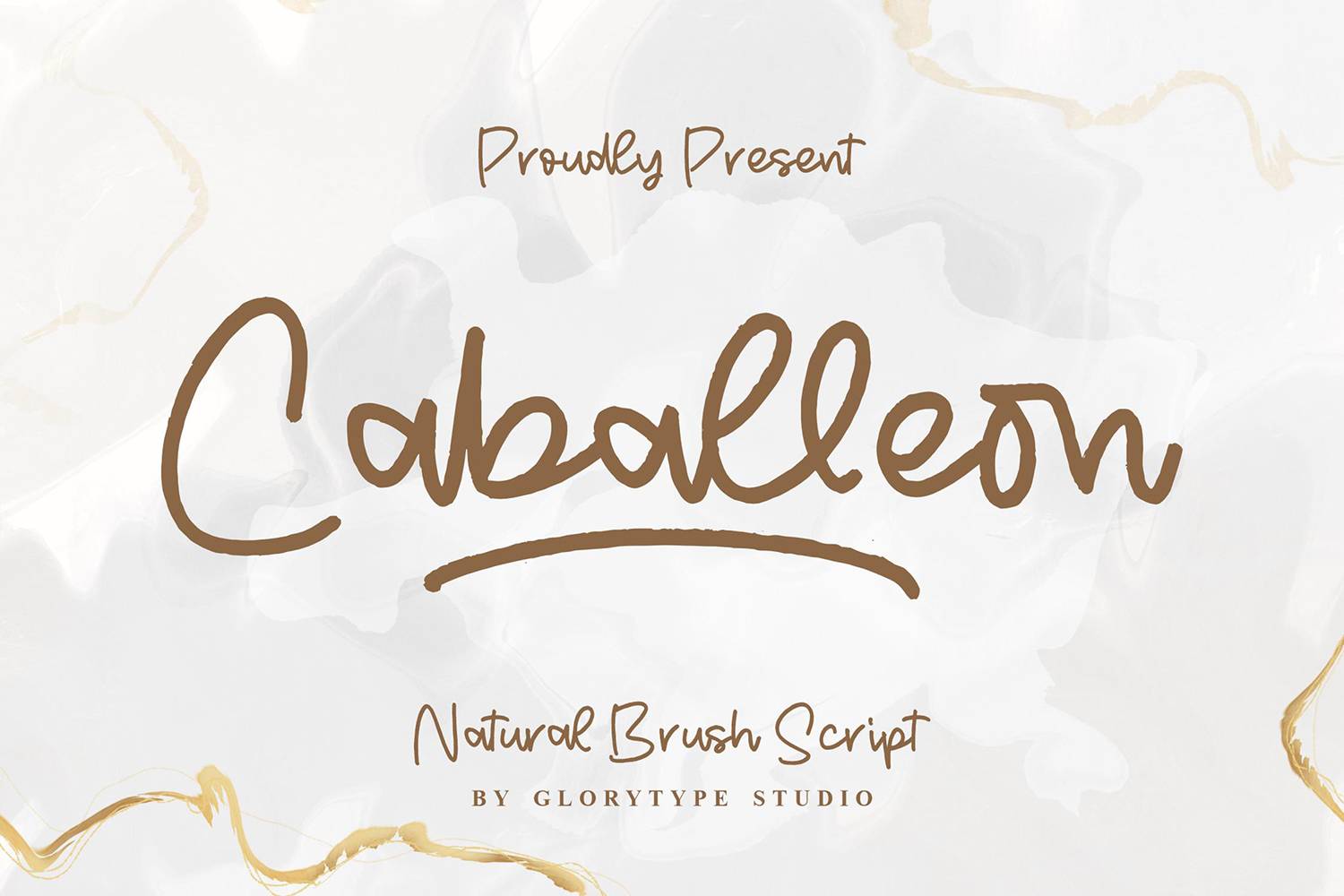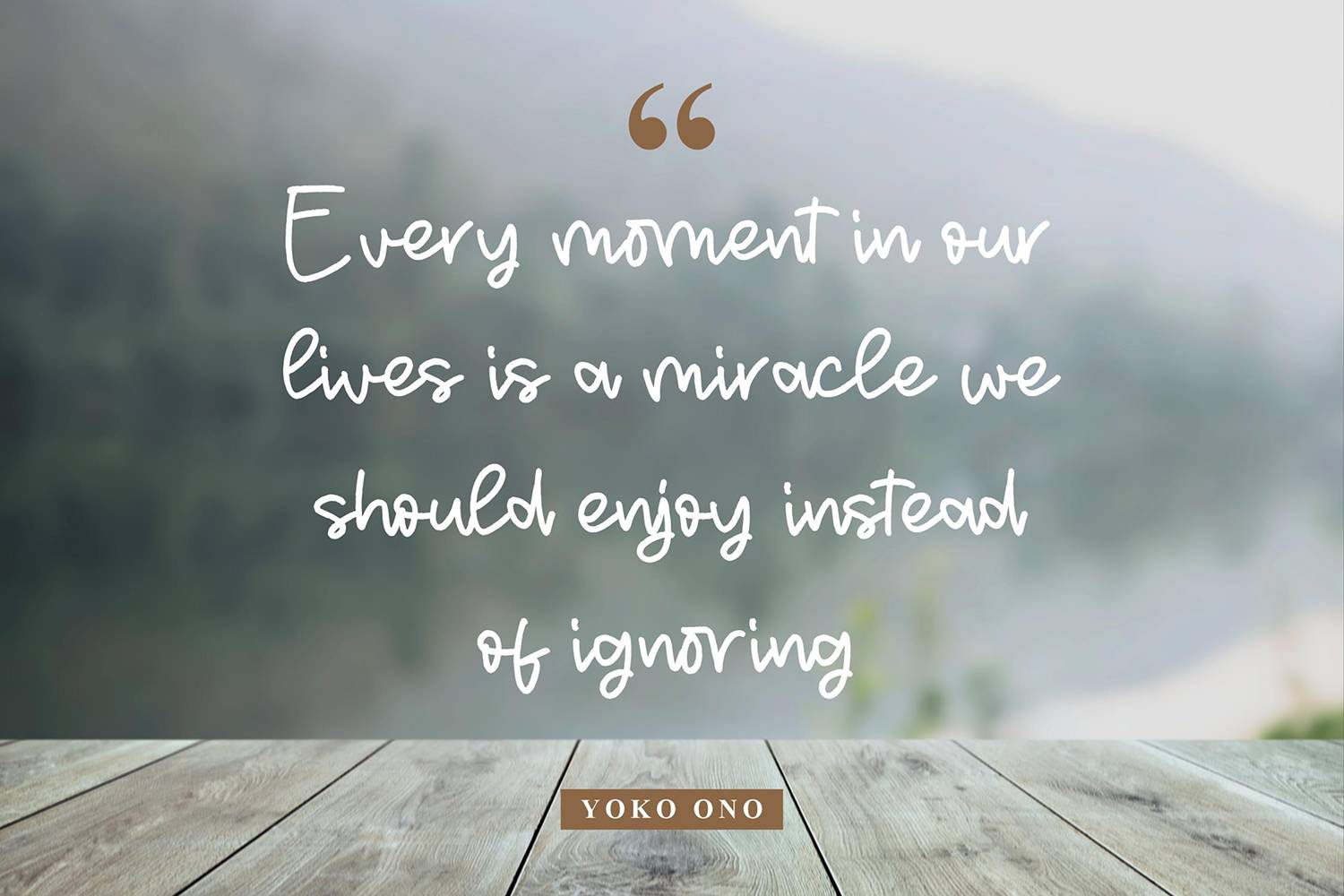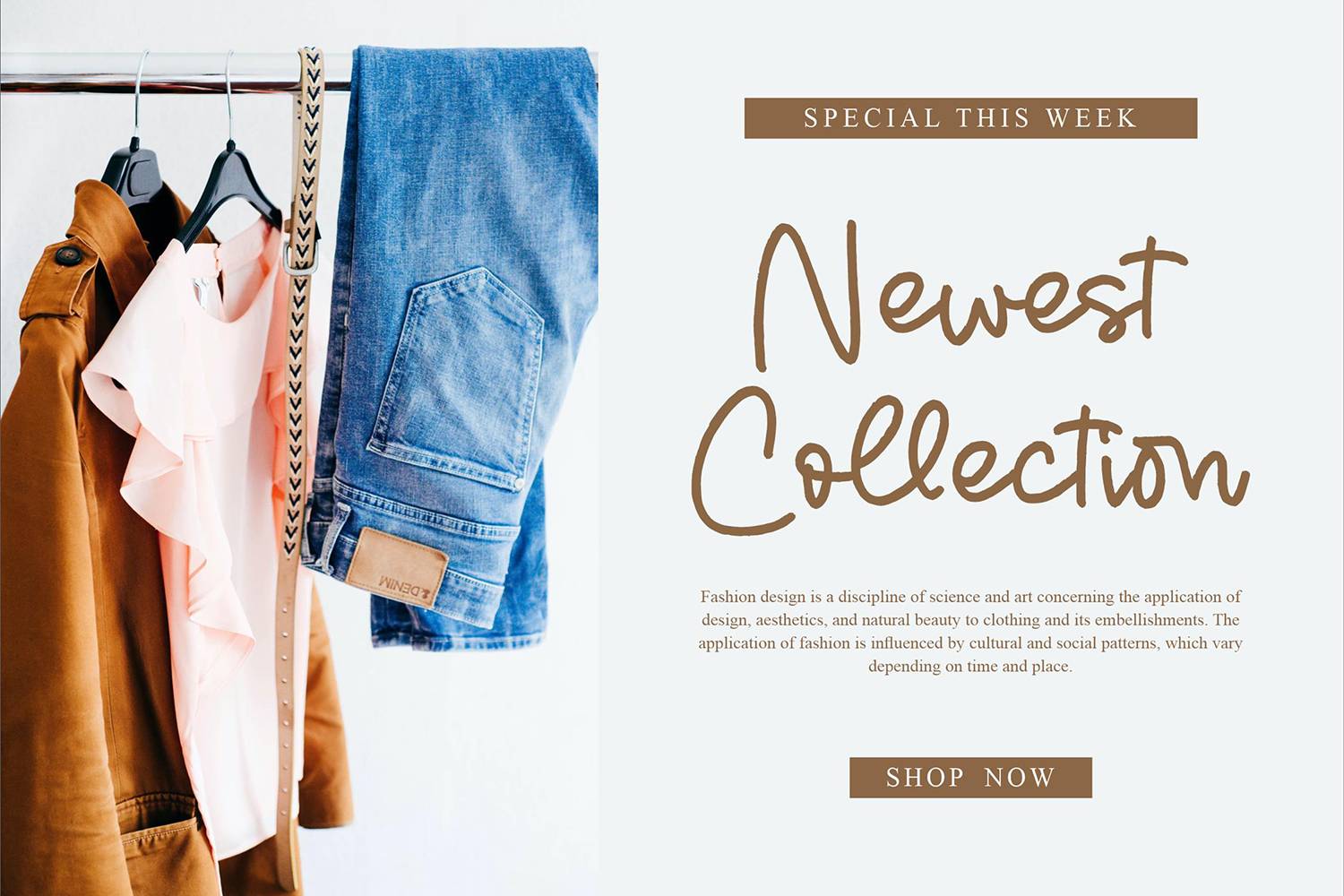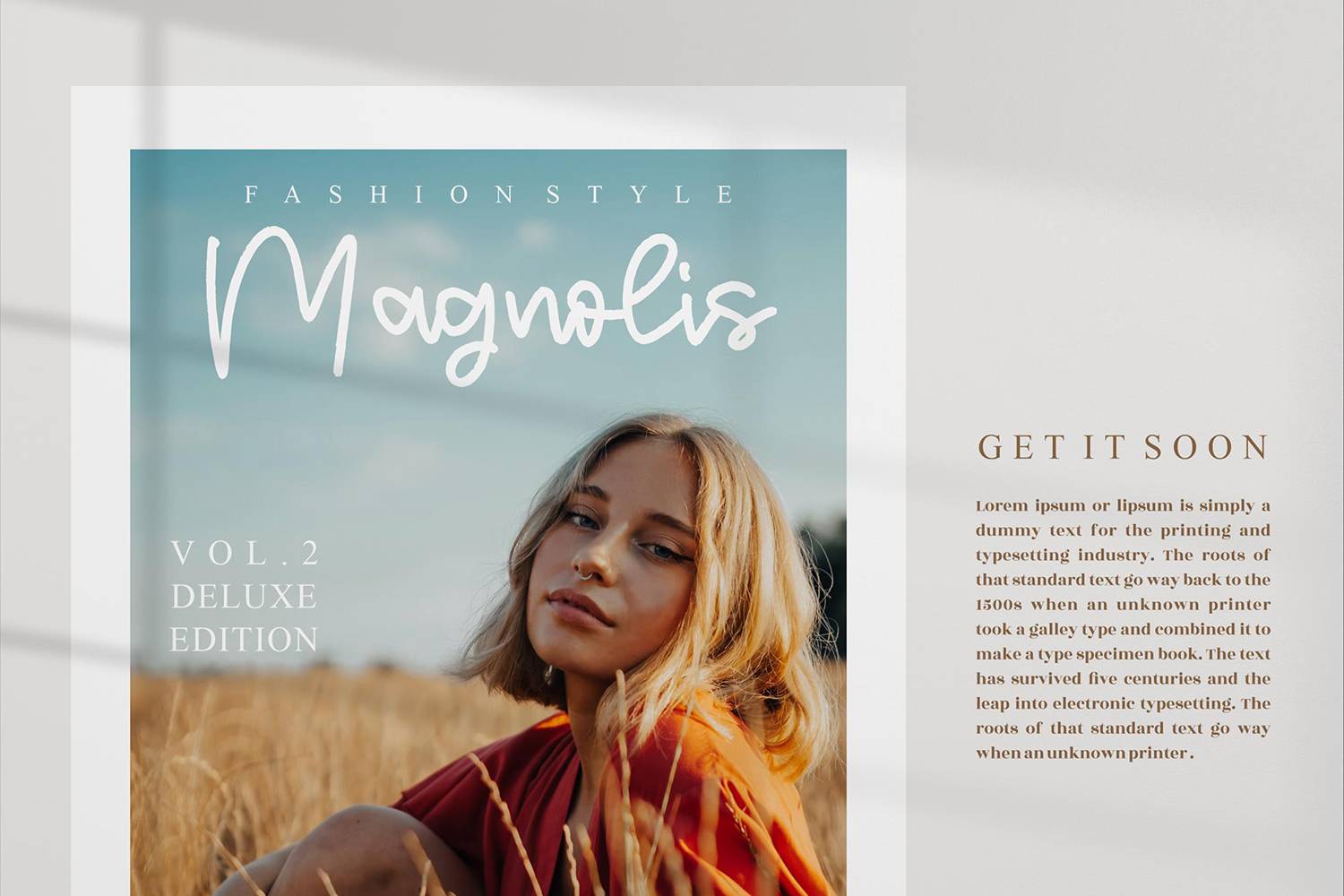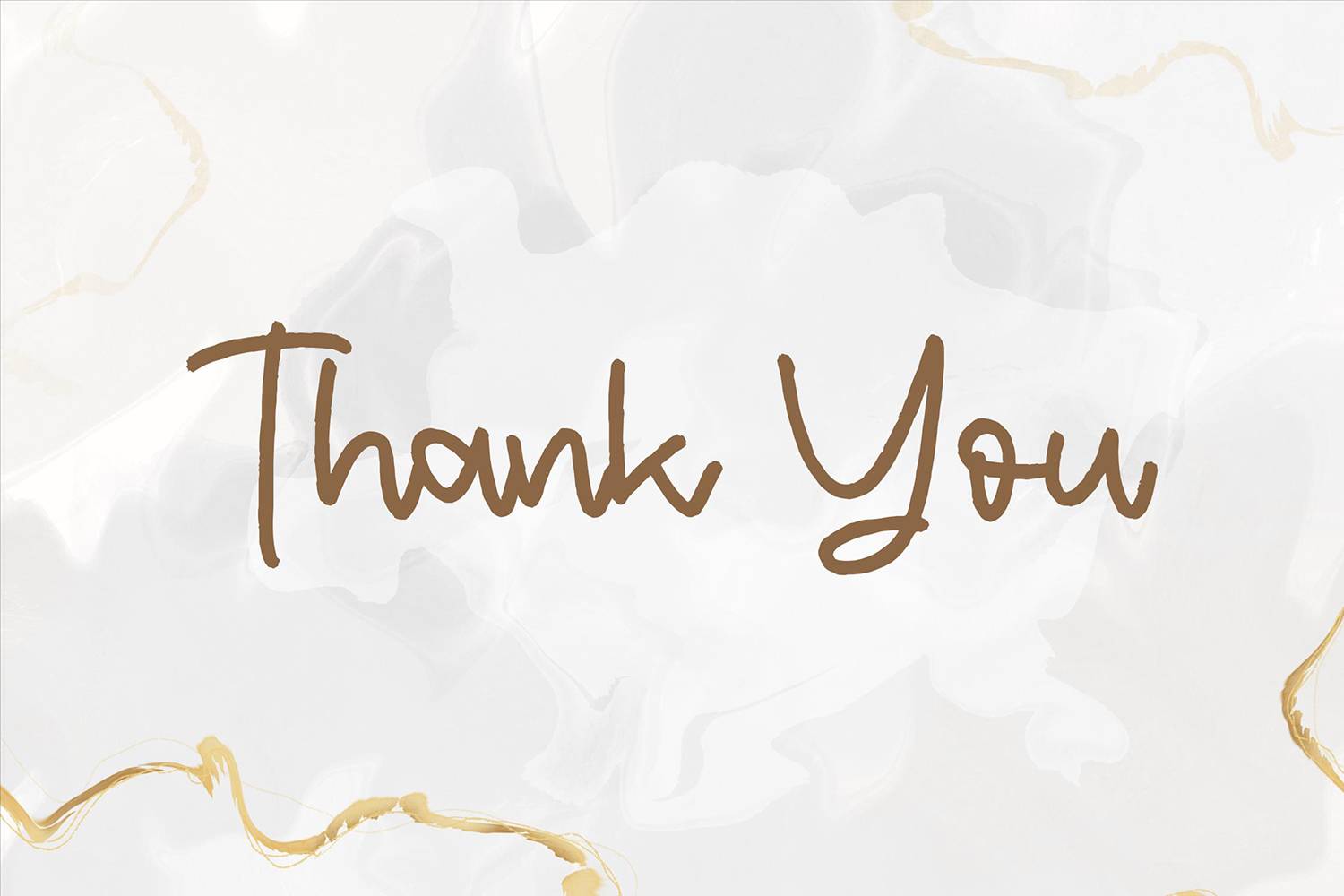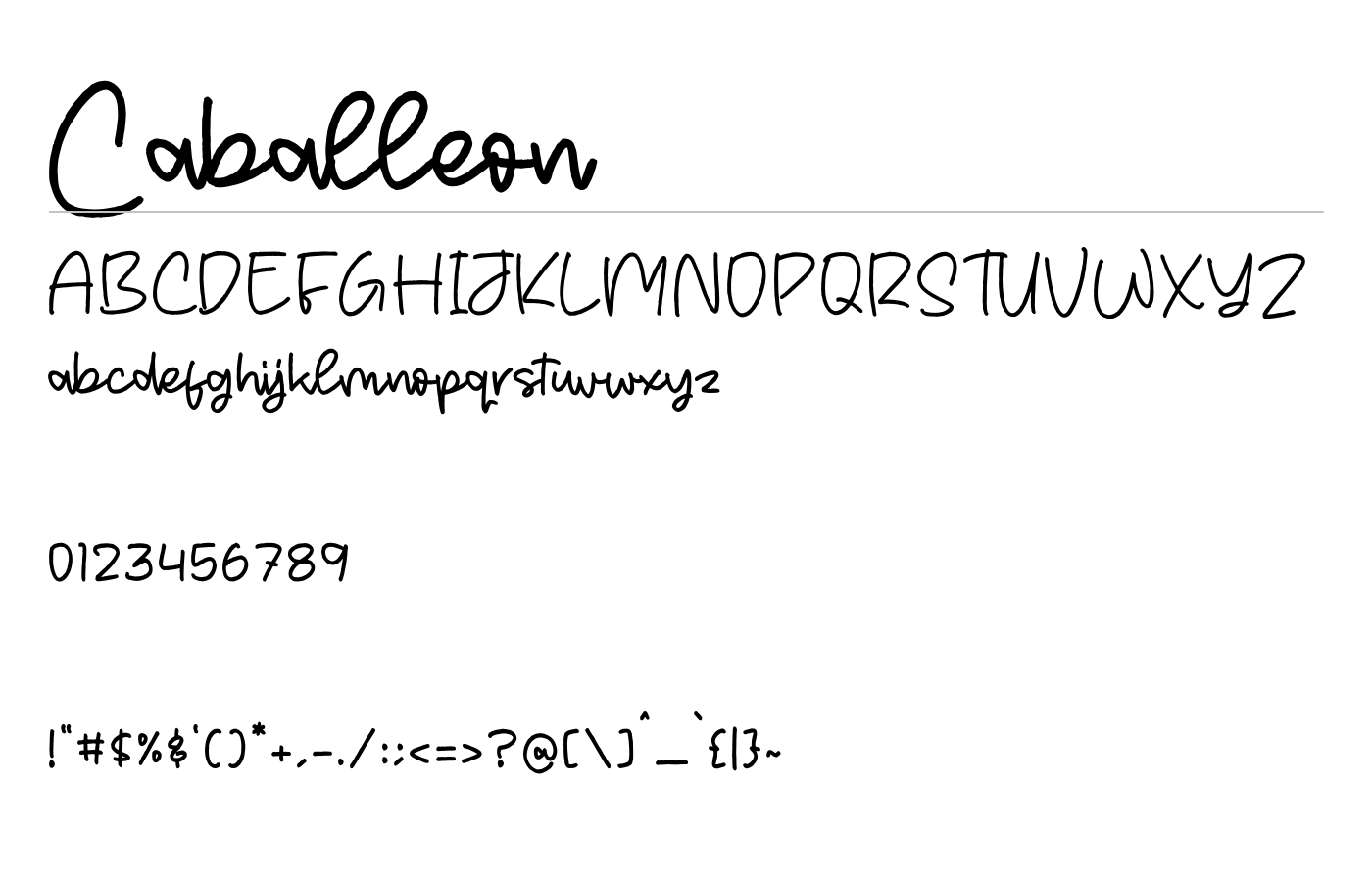
Caballeon is a casual, handwritten-style font with a playful and personal touch, featuring irregular strokes that mimic natural penmanship. Its light weight and airy spacing make it ideal for informal, creative projects where a friendly and approachable vibe is desired. This font works well in greeting cards, casual branding, and social media graphics, lending a warm and authentic feel to any design.
Caballeon Font
About Caballeon Font